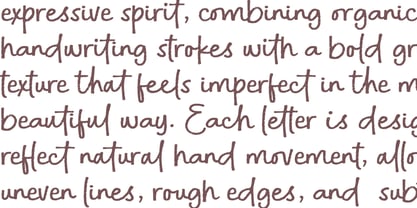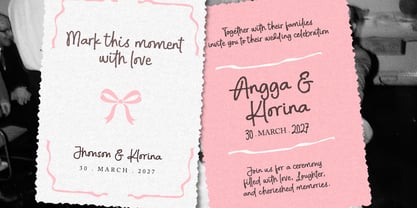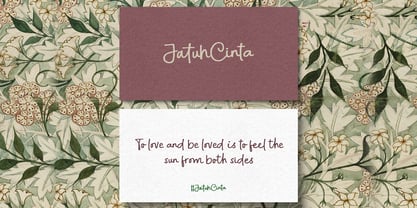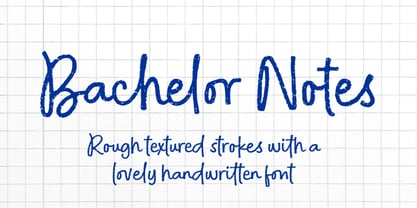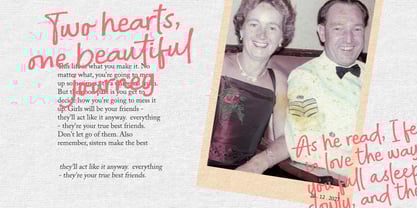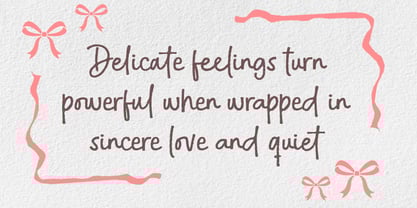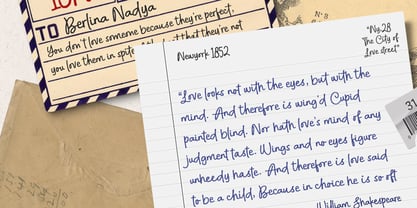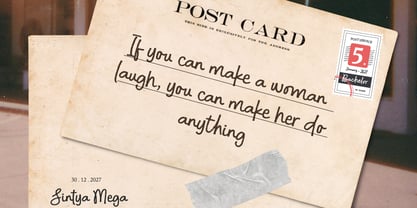
Bachelor Notes
by Subectype
The Bachelor Notes Font Family was designed by Rangga Subekti and published by Subectype. Bachelor Notes contains 1 styles. More about this family
Introducing "Bachelor Notes" This handwritten font is crafted with a raw, expressive spirit, combining organic handwriting strokes with a bold grunge texture that feels imperfect in the most beautiful way. Each letter is designed to reflect natural hand movement, allowing uneven lines, rough edges, and subtle distressing to bring an authentic, human touch to your typography.